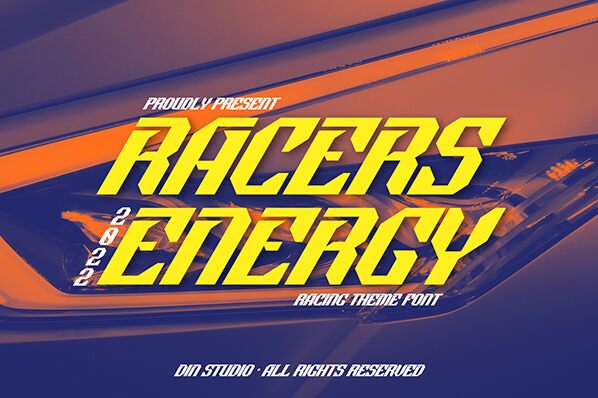
Racers Energy Personal Use
Racers Energy, designed by Din Studio, is a display font that embodies the speed and dynamism of the techno genre. With its semi-bold weight and condensed width, this typeface projects strength and agility. The sharp angles and sleek lines suggest movement, making it an ideal choice for creative projects that require a sense of action or modernity.
The font's aesthetic appeal lies in its futuristic vibe, reminiscent of racing culture and digital technology. The precise cuts in each character mirror the precision found in high-speed machinery, while maintaining readability even at high velocities of visual scanning.
Racers Energy is perfectly suited for branding projects, event posters, gaming interfaces, or any design work where a touch of adrenaline is desired. Its unique characteristics ensure that any text will stand out with a contemporary edge and an energetic pulse.
Racers Energy is a Sport Racing Font